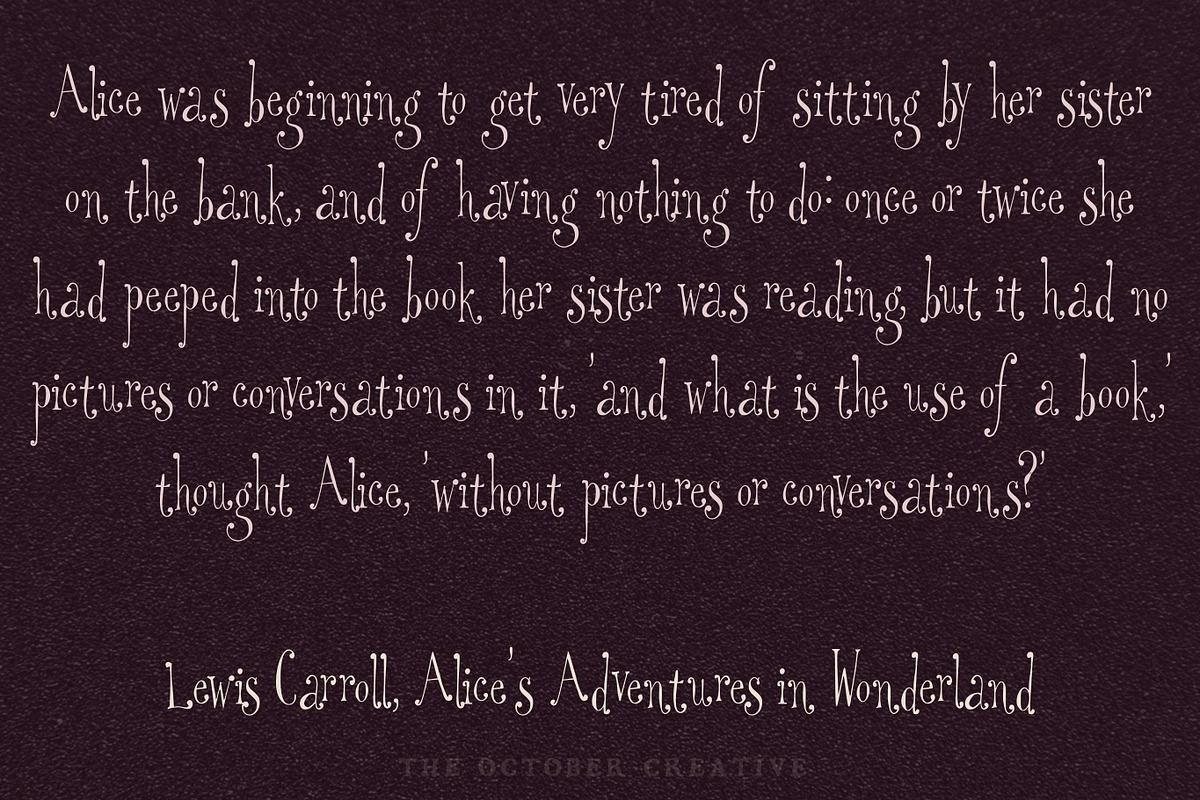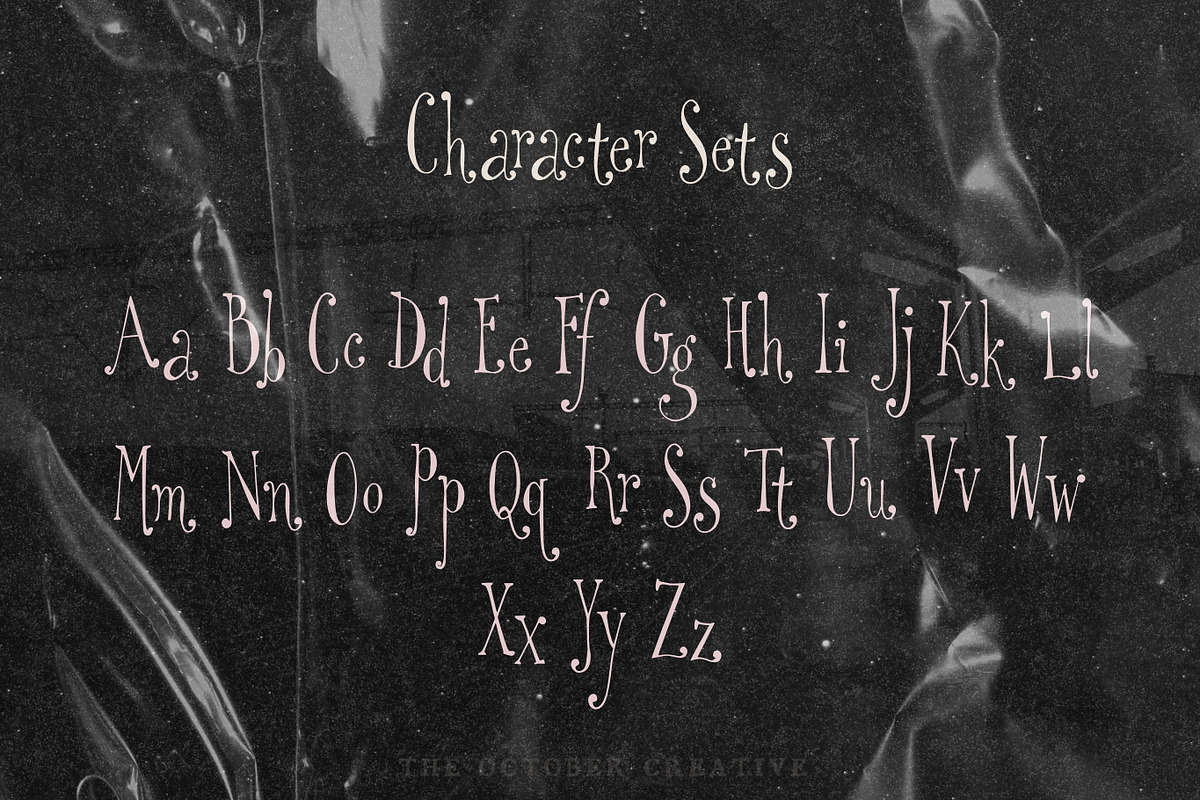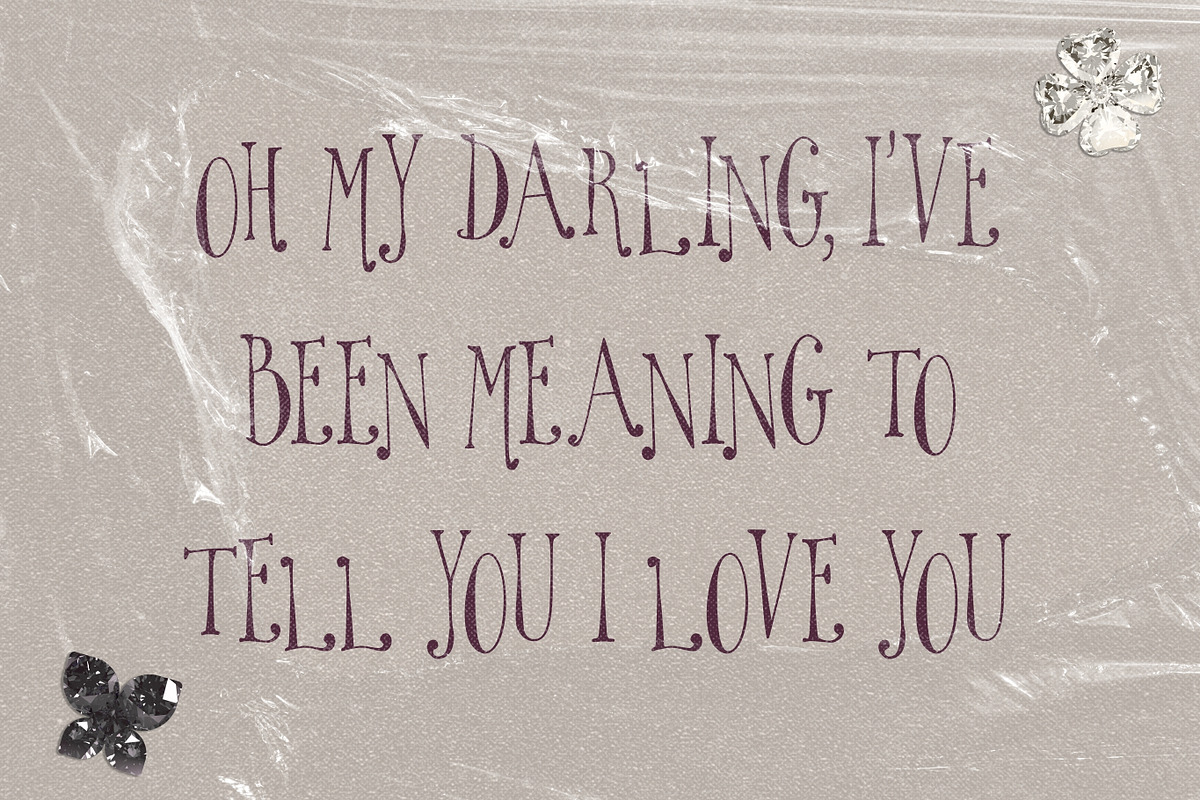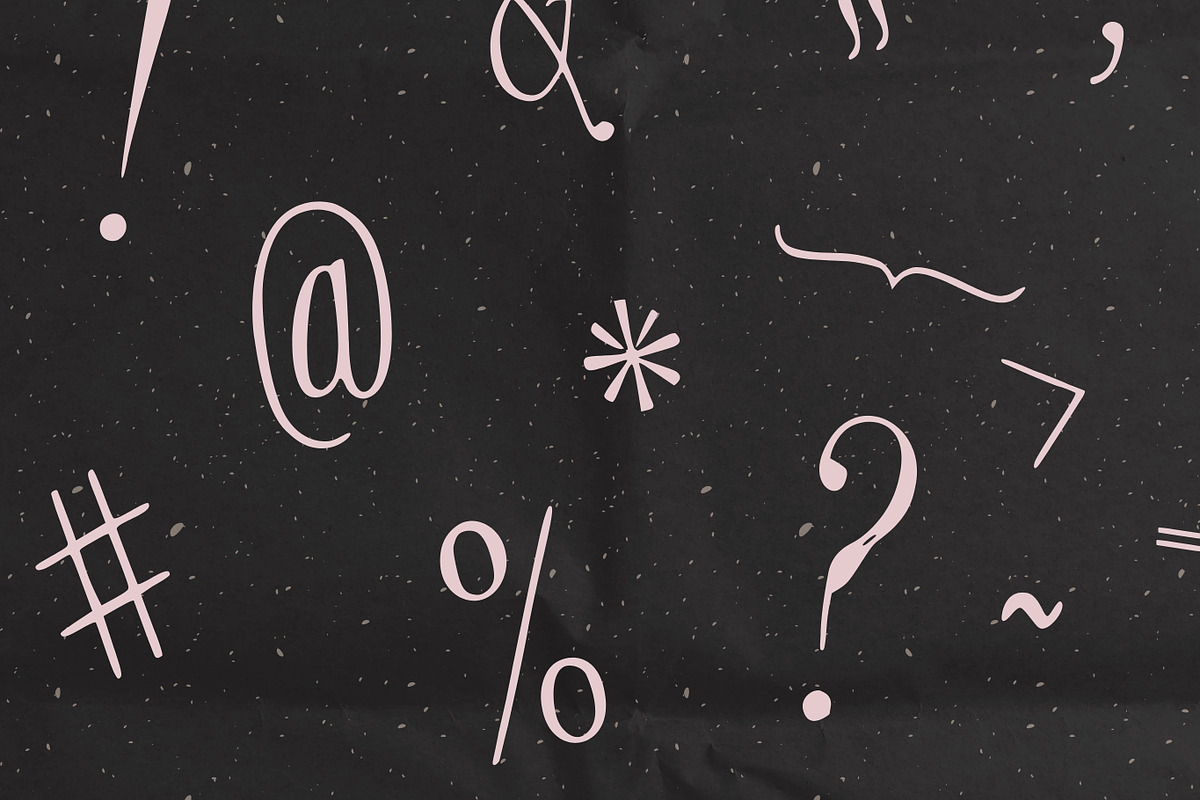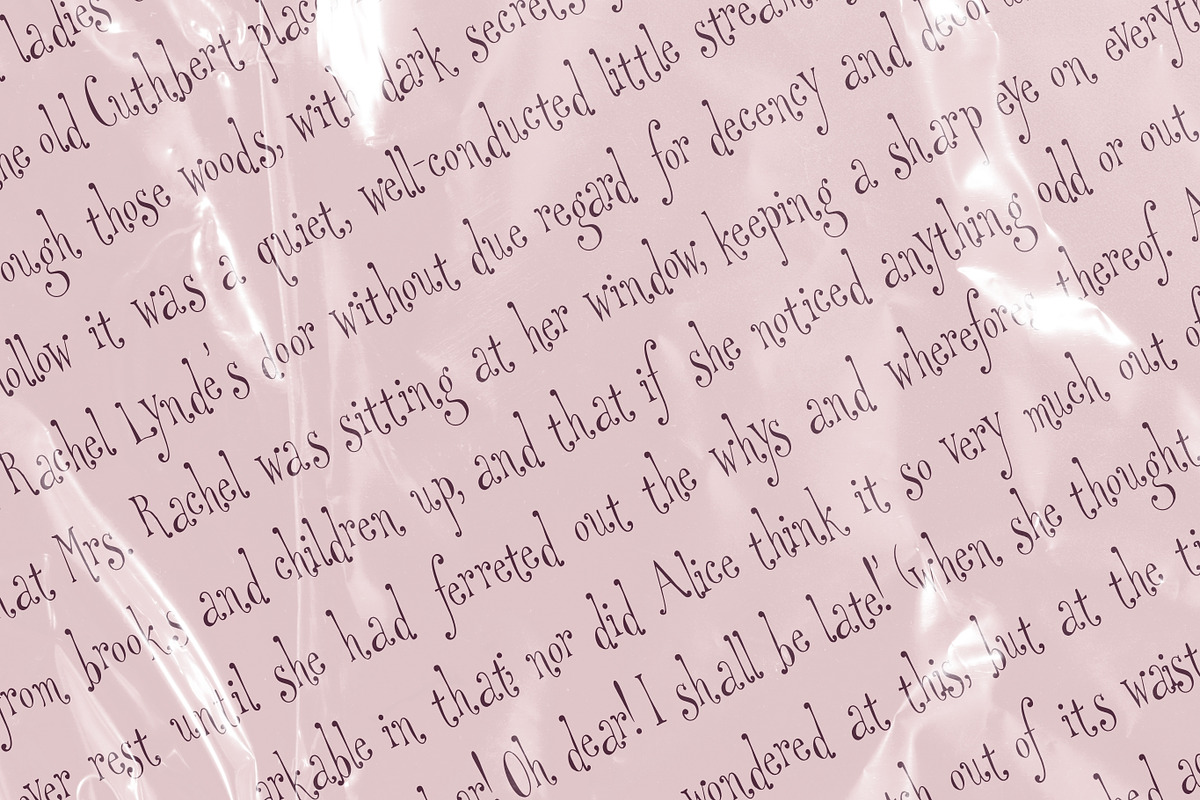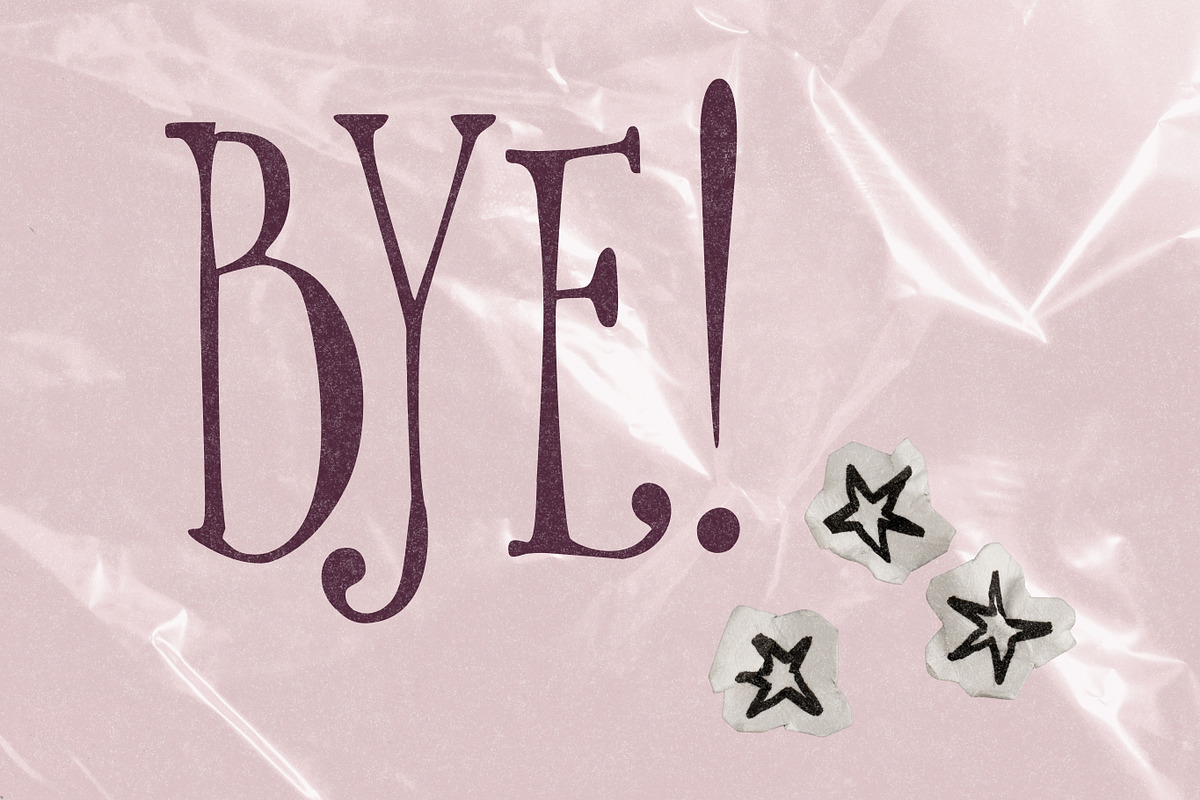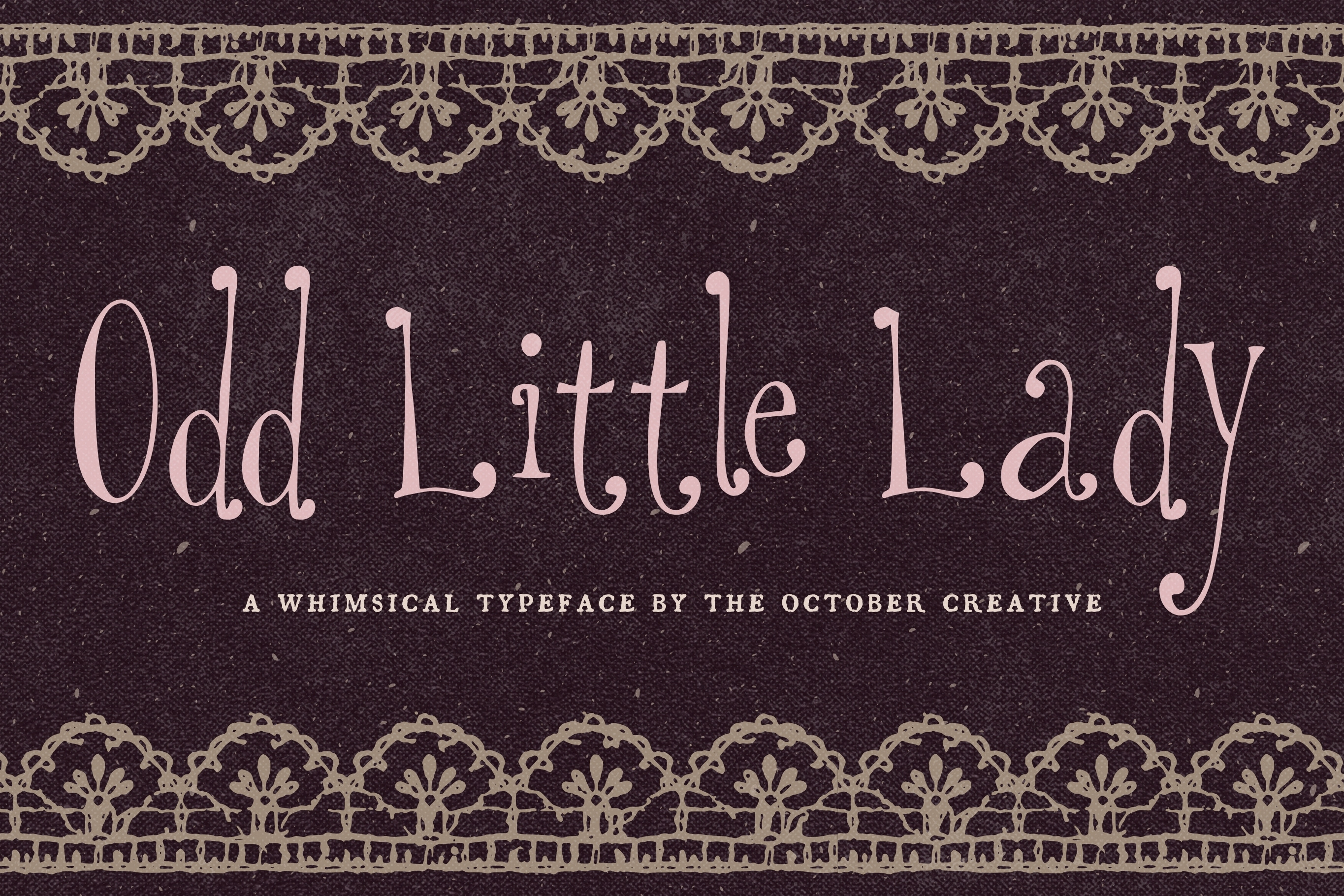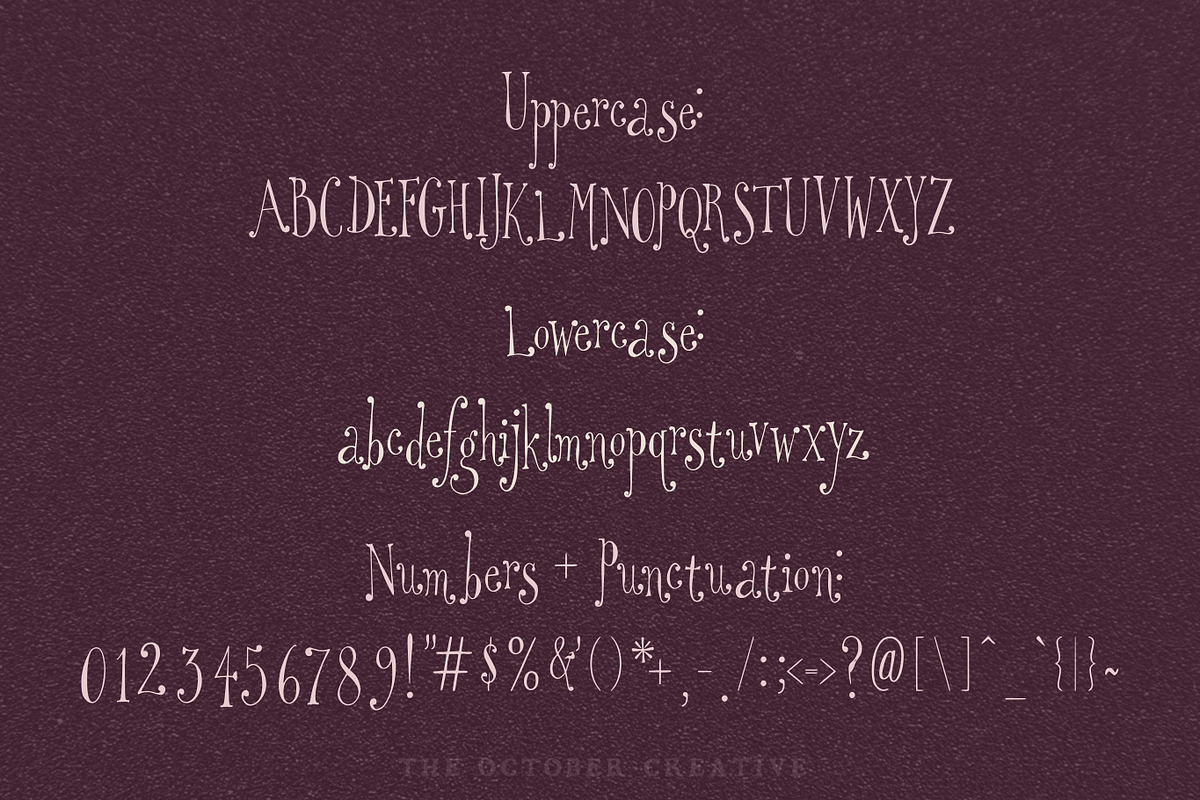
Odd Little Lady Quirky Serif Font
Odd Little Lady is a tall, quirky serif font with narrow letters, curled tails, and little swashes on the ends of its strokes. It has an old storybook feel that suits book covers, tea party invitations, journal headings, and labels.
CHARACTER SET
Uppercase A to Z, lowercase a to z, numerals 0 to 9, and every standard keyboard punctuation mark and symbol: ! " # $ % & ' ( ) * + , - . / : ; < = > ? @ [ \ ] ^ _ ` { | } \~
Curly quotes and apostrophes (‘ ’ “ ” ‚ „), en and em dashes, an ellipsis, and a bullet.
Accented letters: À Á Â Ã Ä Å Ç È É Ê Ë Ì Í Î Ï Ñ Ò Ó Ô Õ Ö Ù Ú Û Ü and their lowercase forms.
LANGUAGES SUPPORTED
English, plus the accented vowels, Ñ, and Ç used in names and everyday words in Spanish, French, Italian, Portuguese, German, and Dutch. Not included: ß, Æ, Ø, Œ, and the upside-down ¿ and ¡.
SPECIAL CHARACTERS